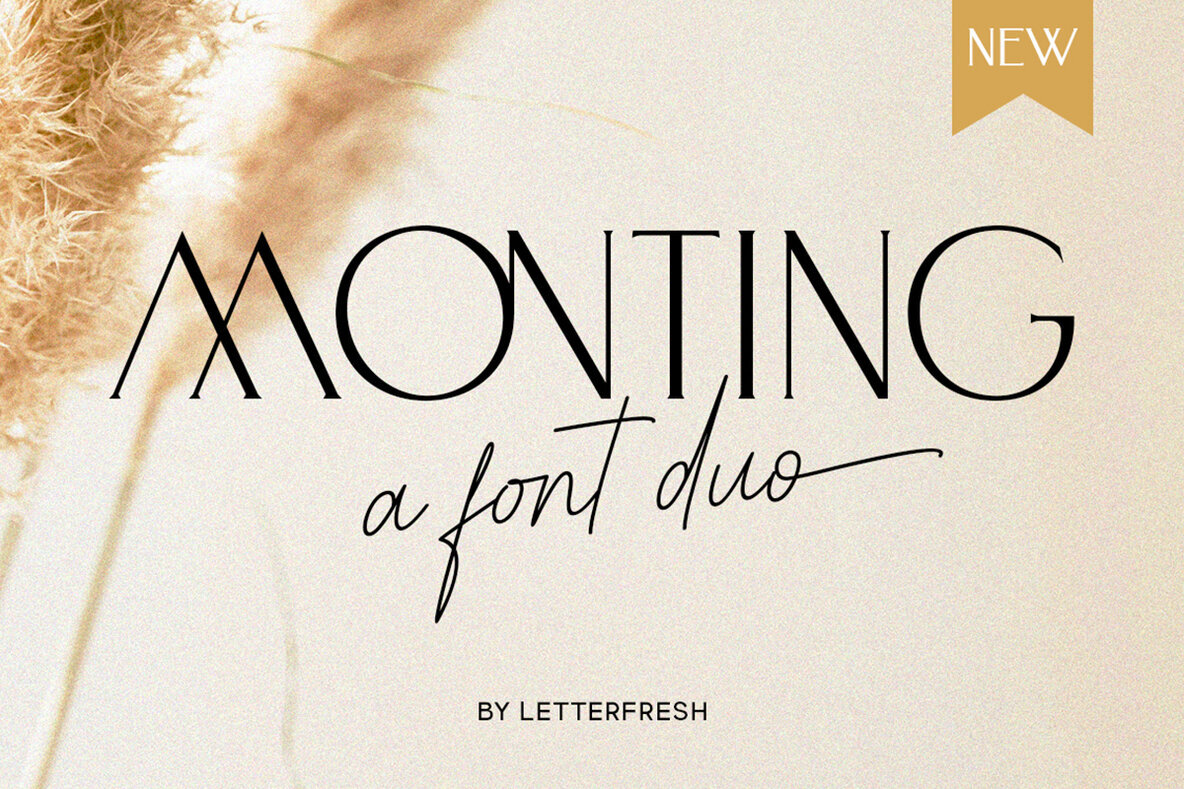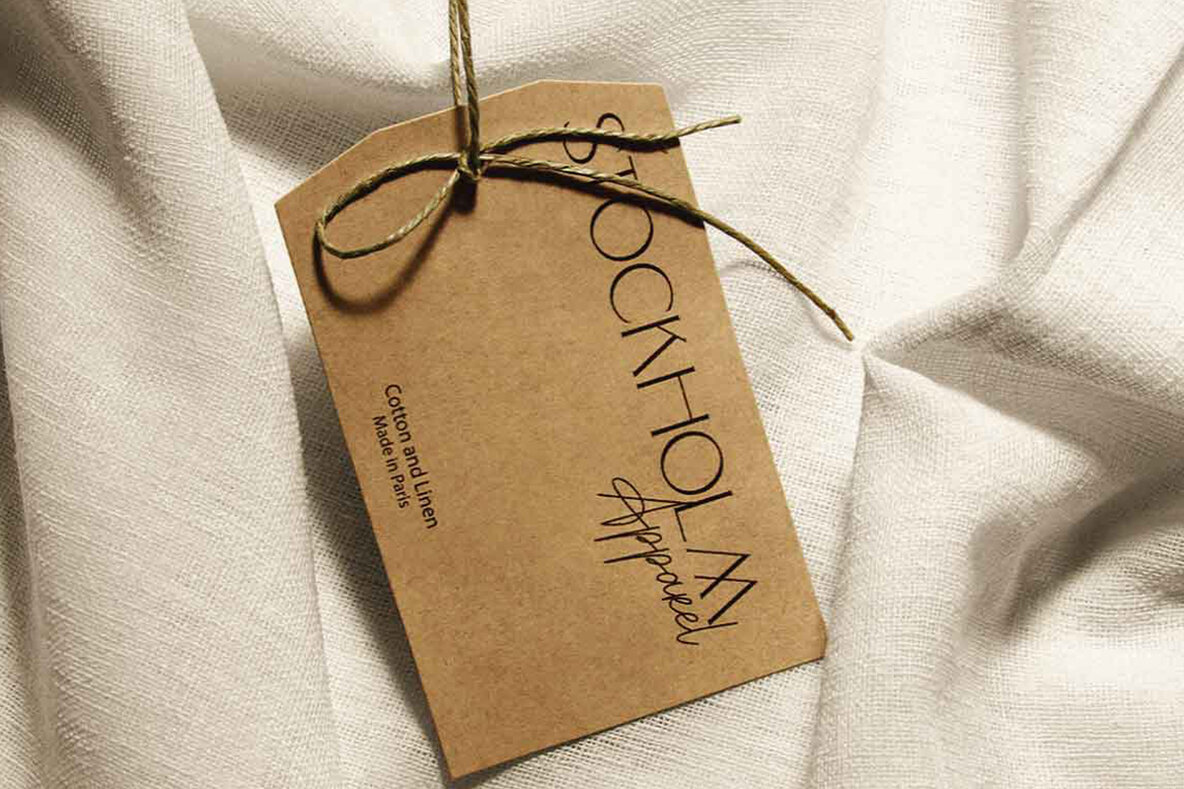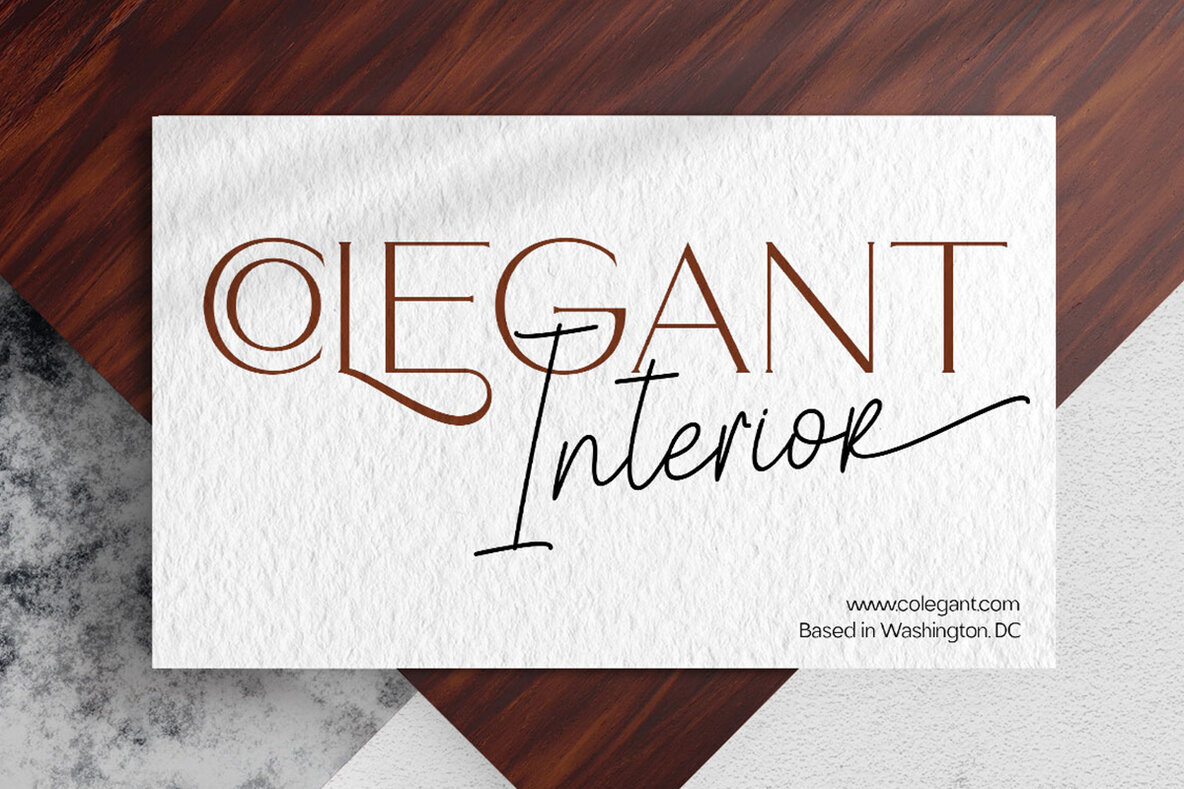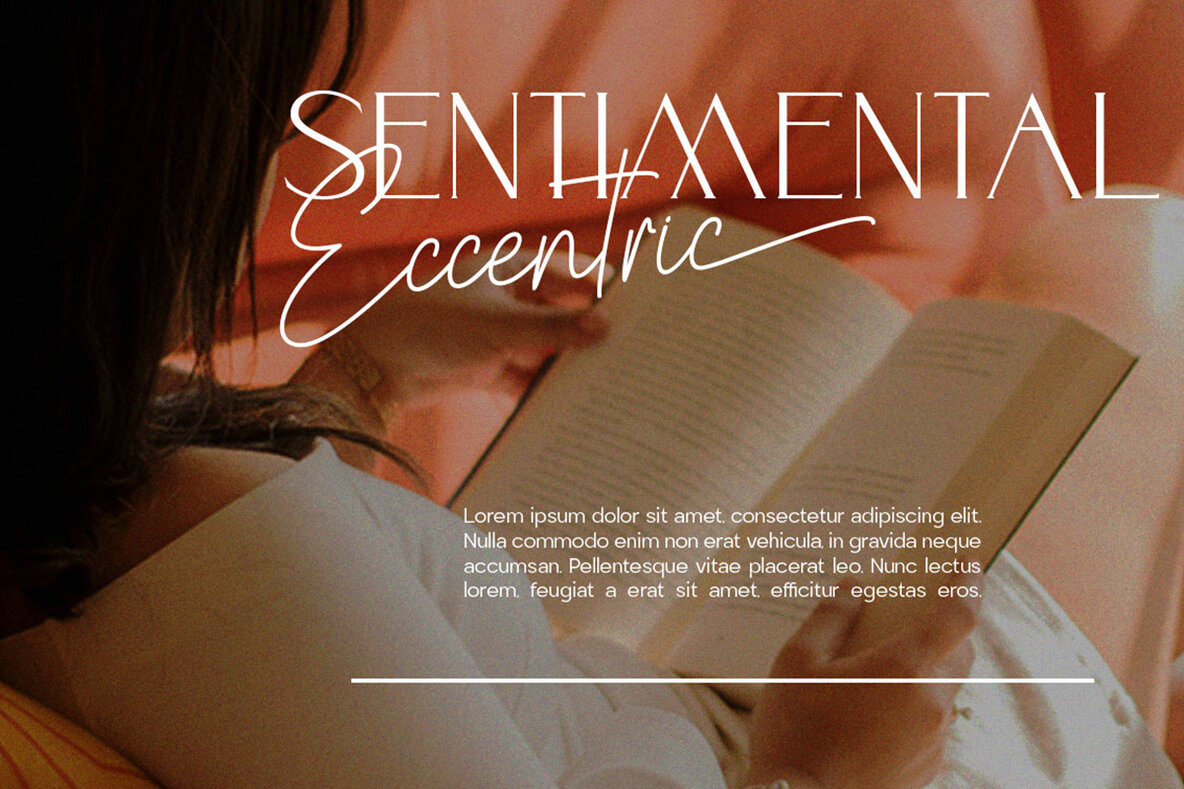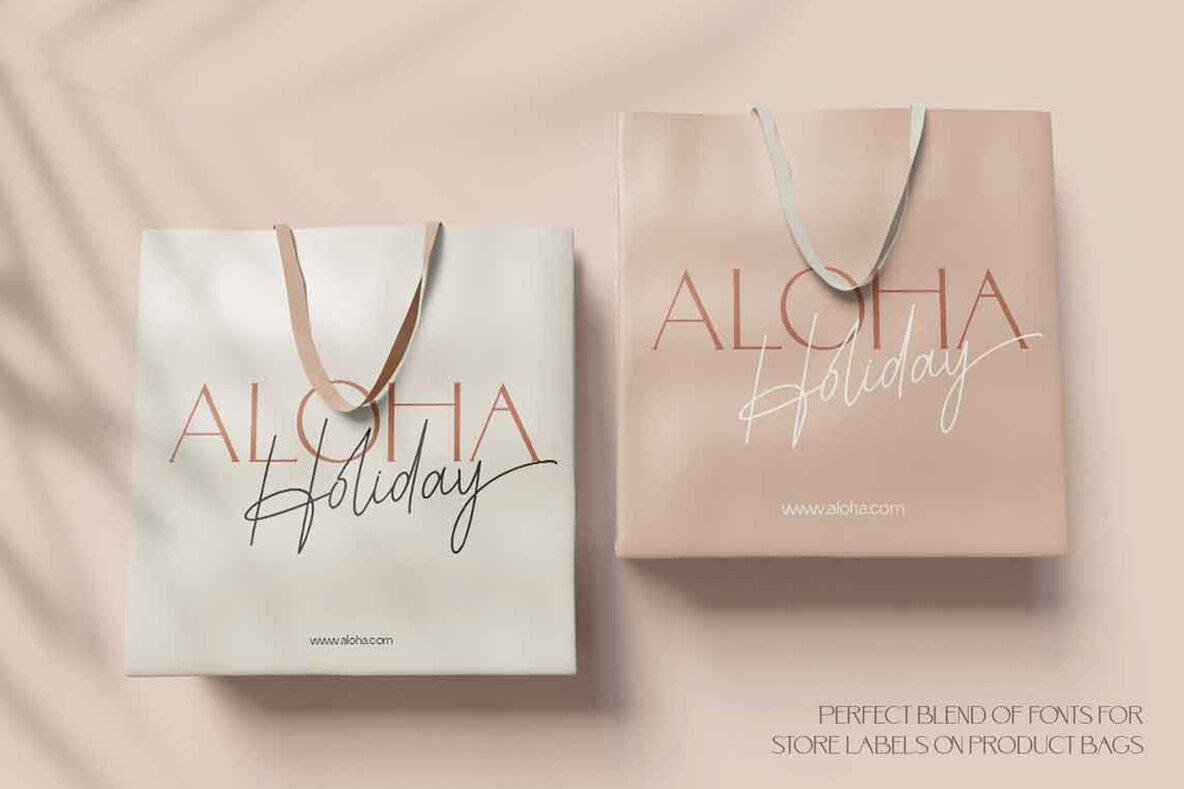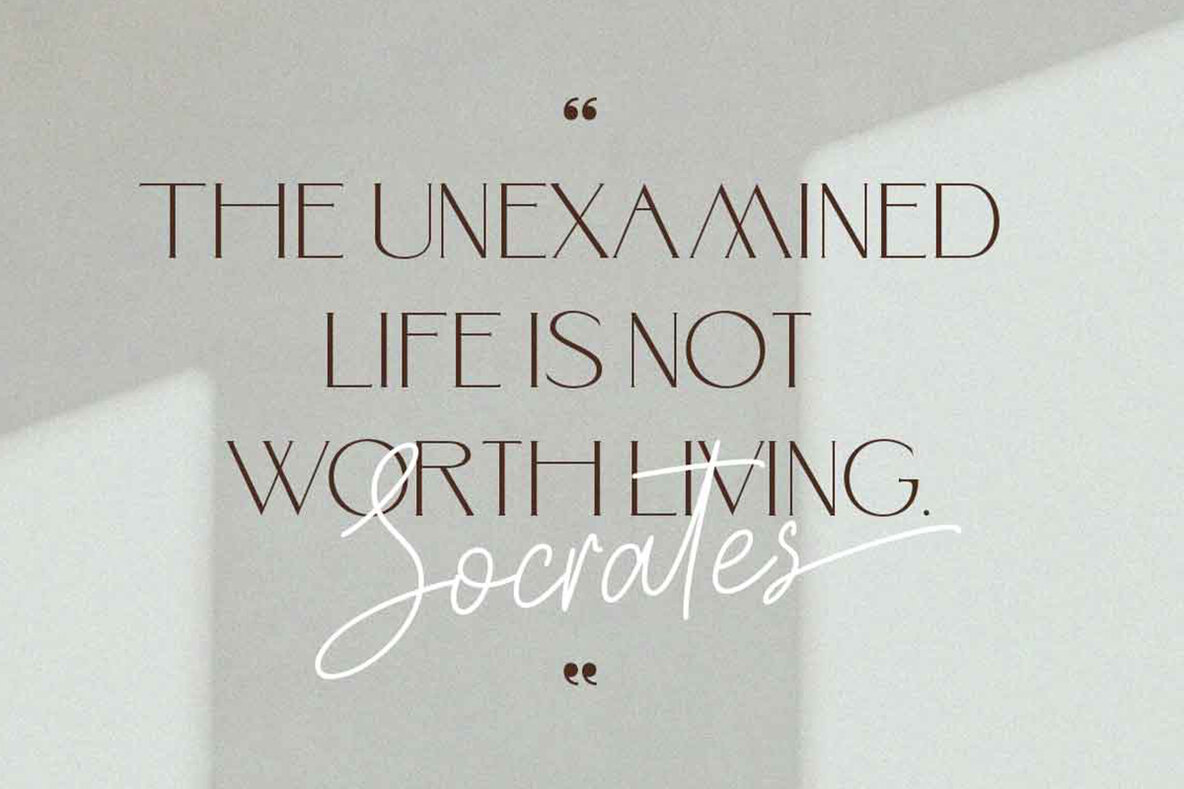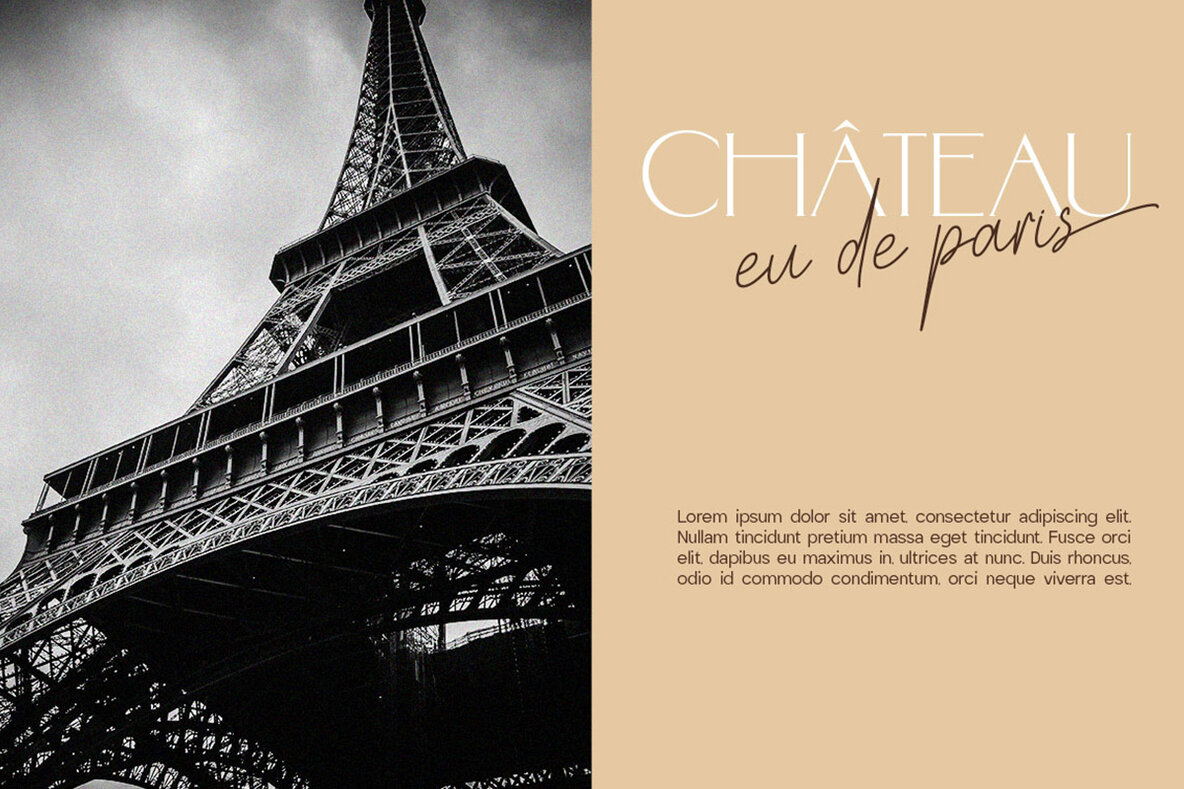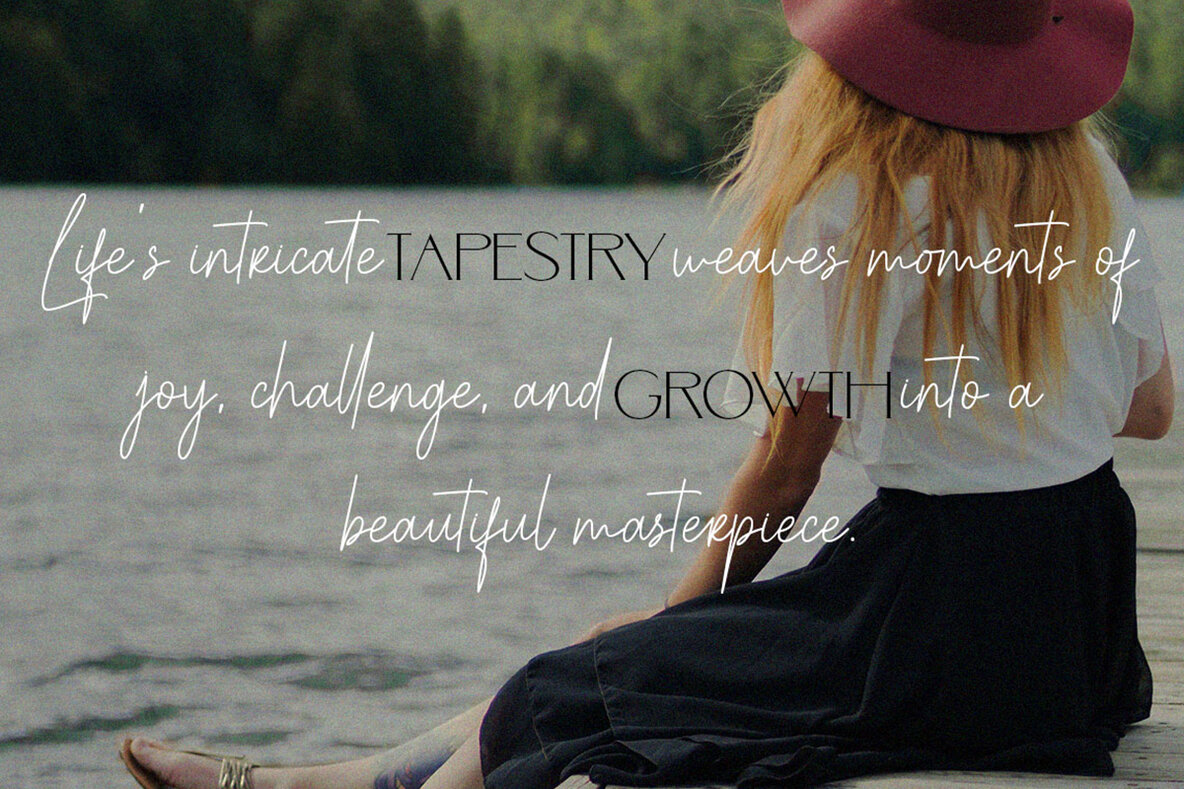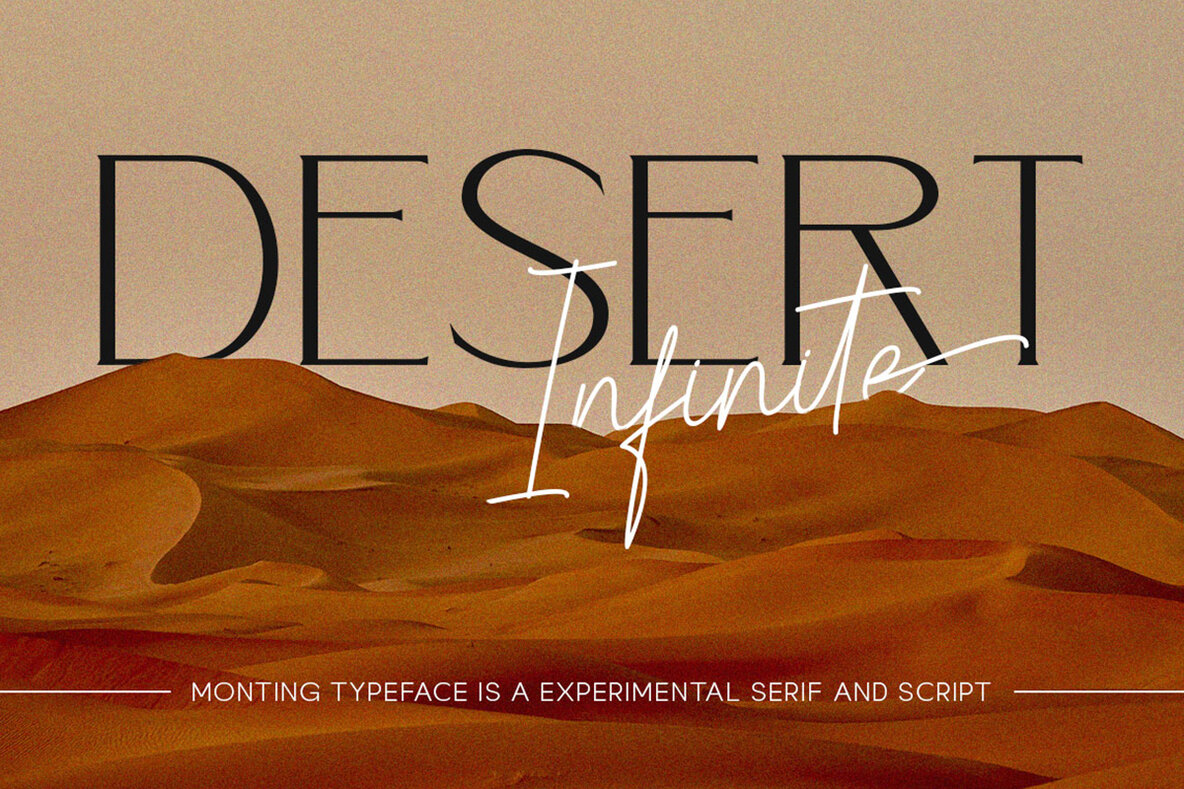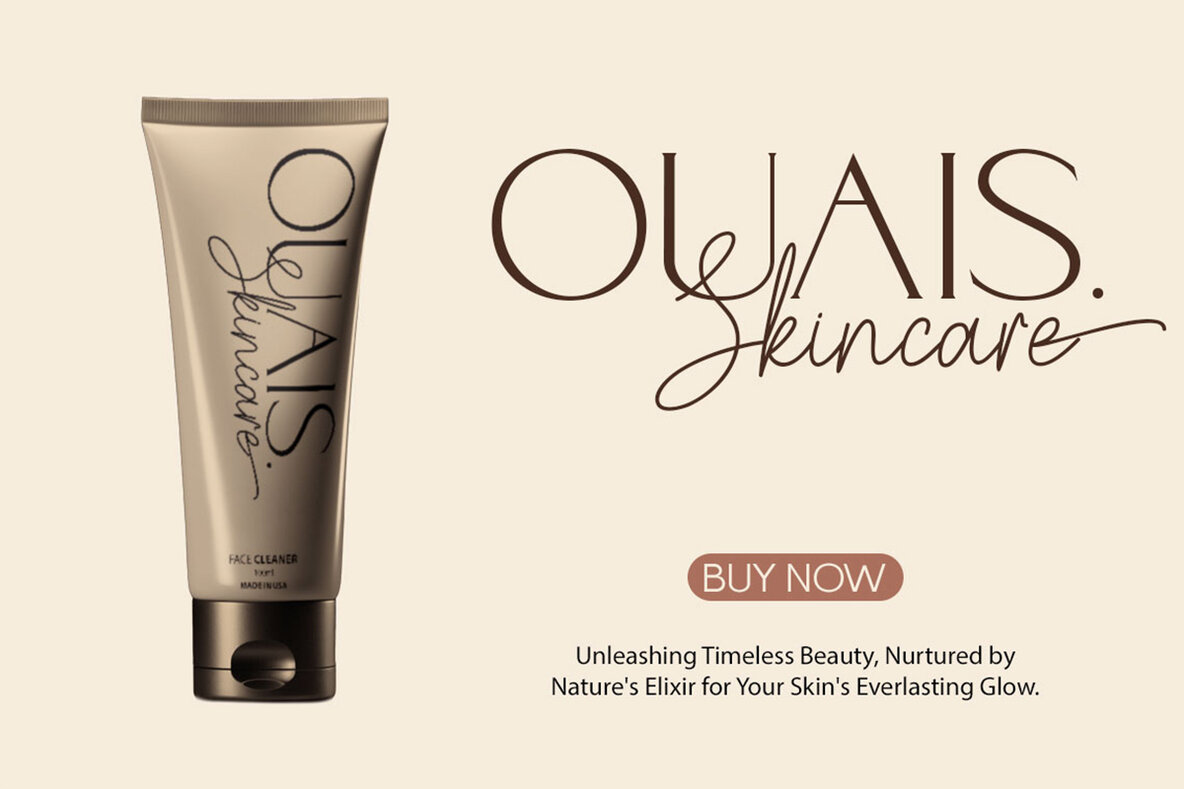
Monting Modern Font
Elevate your design projects with Monting Modern by LetterFresh Studio, a sophisticated font duo embodying a perfect blend of modern and elegant serif styles. Featuring a harmonious combination of sans and signature fonts, Monting Modern guarantees exquisite typography for a diverse range of applications. Ideal for logos, labels, and packaging designs, it also effortlessly enhances blog titles, posters, and wedding themes. Whether you're crafting social media visuals, creating artful quotes, or designing book covers, this serif duo ensures a polished and professional finish.Monting Modern: The Luxury Font Duo